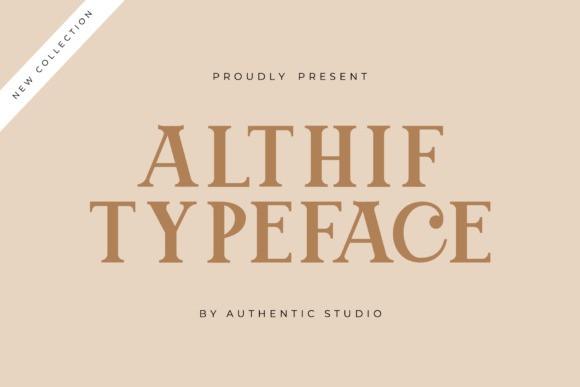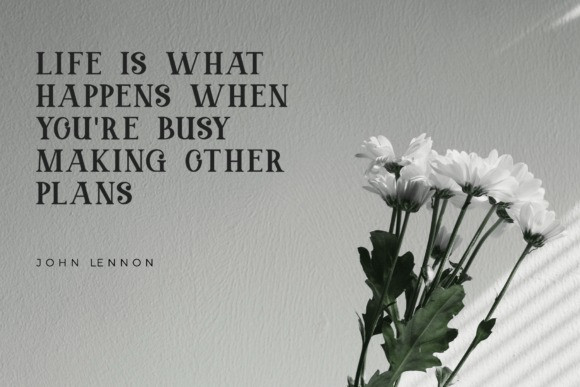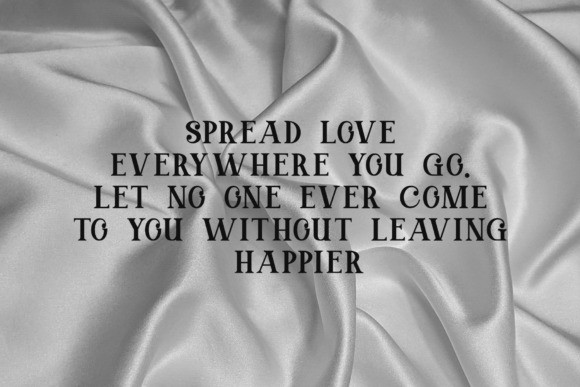
Althif Font
Altif is an aesthetic serif font with a simple shape that fits all your design needs. Use it to add some style and modernity to your beautiful creations!